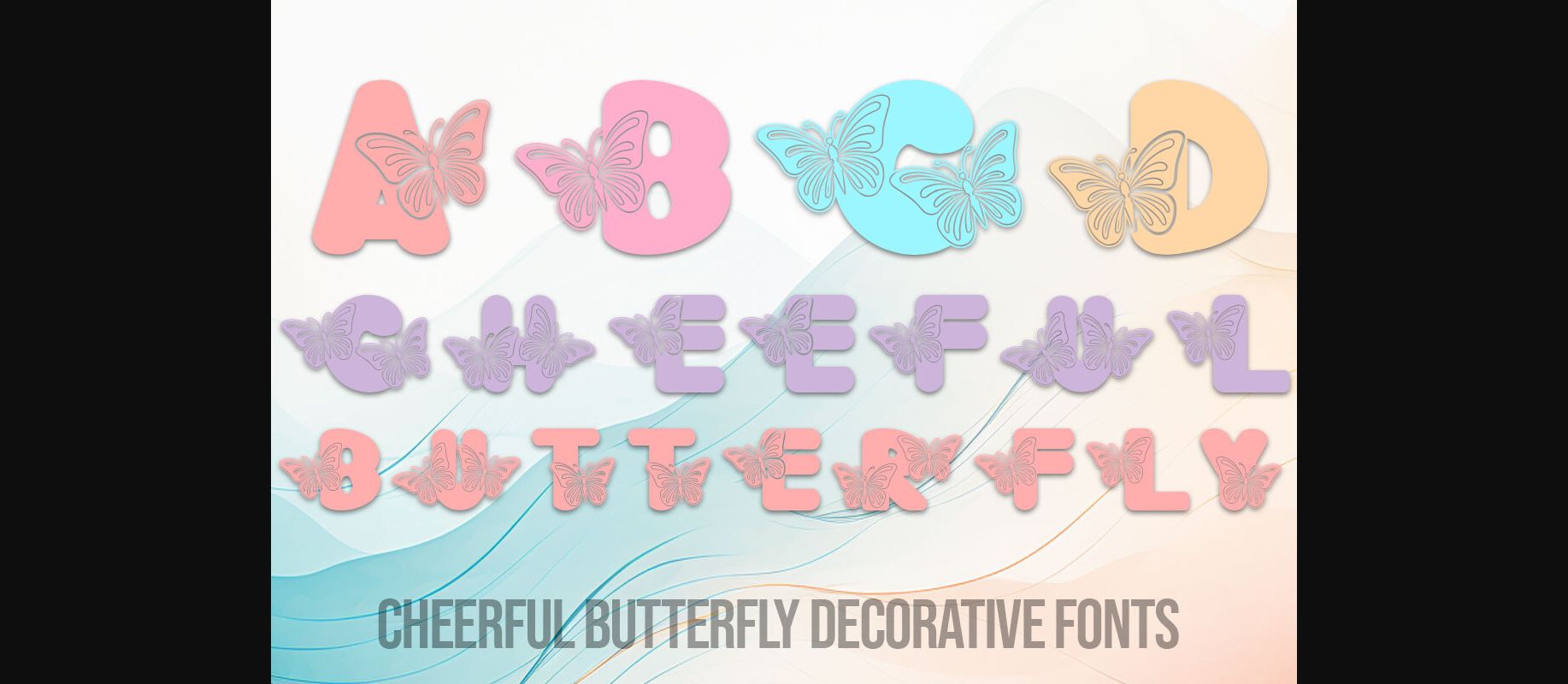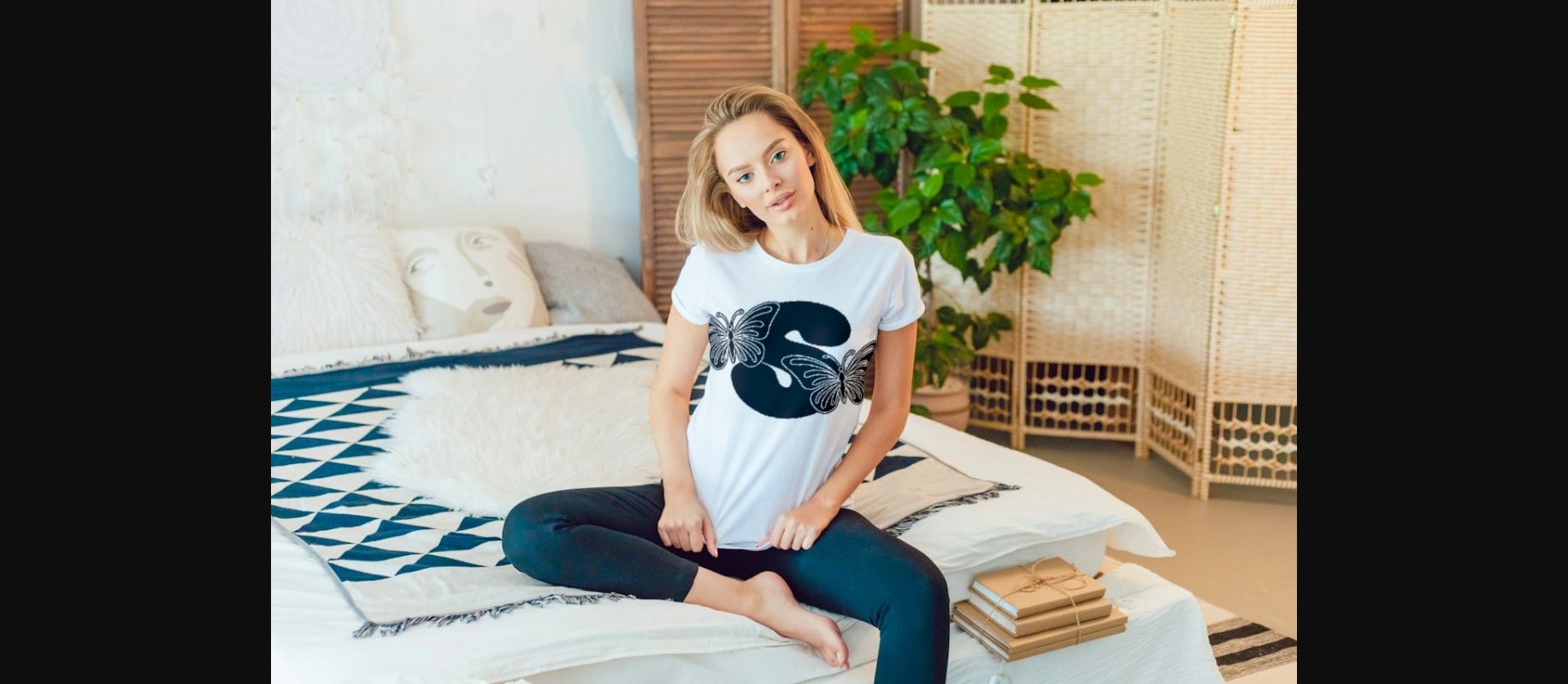
About Cheerful Butterfly Font
Introducing our ‘Cheerful Butterfly Fonts’: A whimsical set of 36 characters, featuring 26 uppercase letters and numbers 0-9. Each letter is gracefully adorned with butterflies, creating a perfect blend of cheer and creativity. Elevate your digital projects with this unique font, designed to bring joy and a touch of nature-inspired beauty to your creations